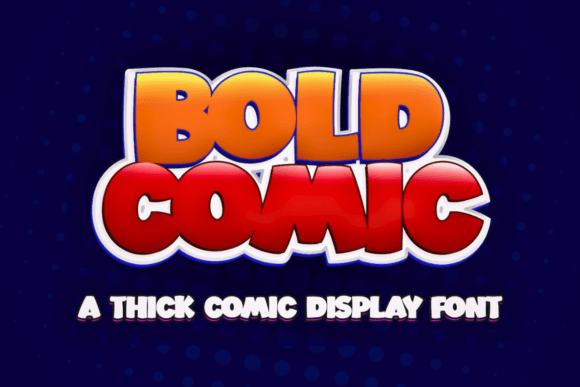
Welcome to the world of Bold Comic, an extraordinary display font ready to ignite your creative spirit! Embark on a visual odyssey with this bold and distinctive comic-style typeface, meticulously crafted to bestow an indelible charm upon your designs.
Bold Comic is not just a font; it's an artistic expression that dances across your digital canvas. Each letter, meticulously shaped with playful curves and striking angles, exudes confidence and individuality. Let your imagination soar as you witness how this font transforms your words into eye-catching headlines, captivating social media posts, and unforgettable branding material.
Designed with versatility in mind, Bold Comic effortlessly adapts to a myriad of creative endeavors. Whether you're a seasoned graphic designer seeking to elevate your projects or a passionate crafter eager to add a personal touch to your Cricut creations, Bold Comic is your ultimate font companion.
Unleash your inner artist and embrace the infinite possibilities that await you with Bold Comic. Let your designs take center stage, captivating audiences with its unique charm. Experience the joy of creating designs that resonate, designs that leave a lasting impression.